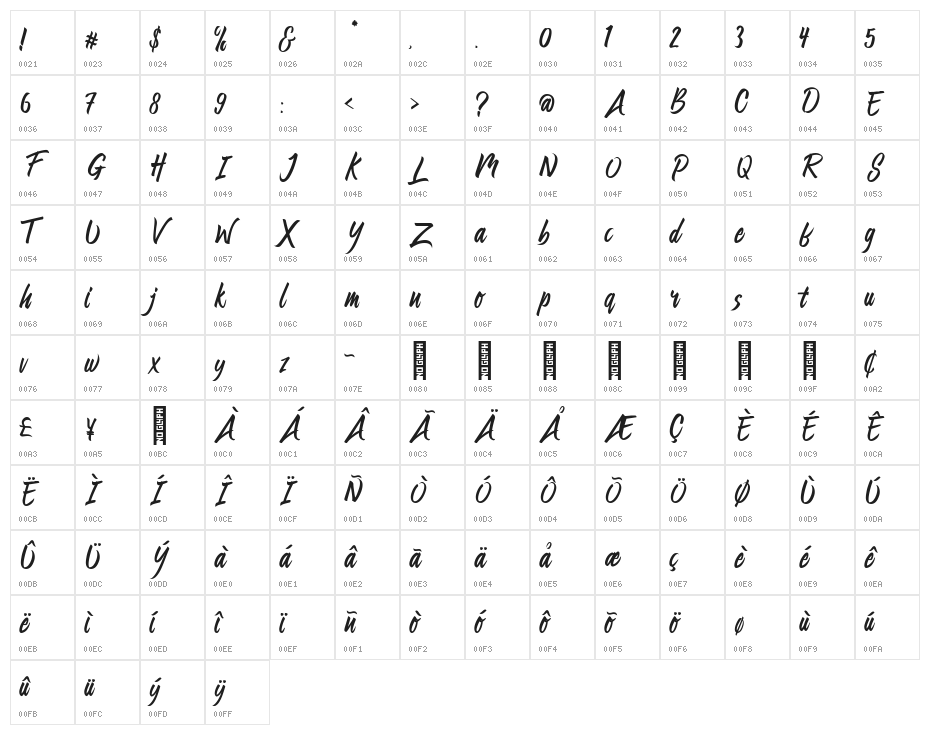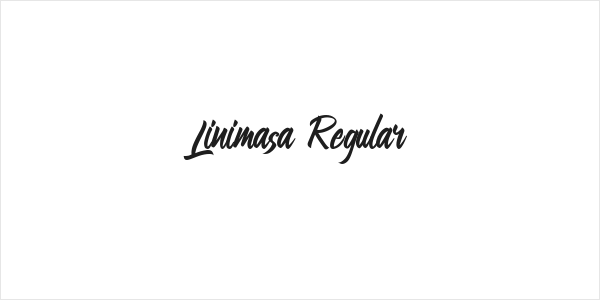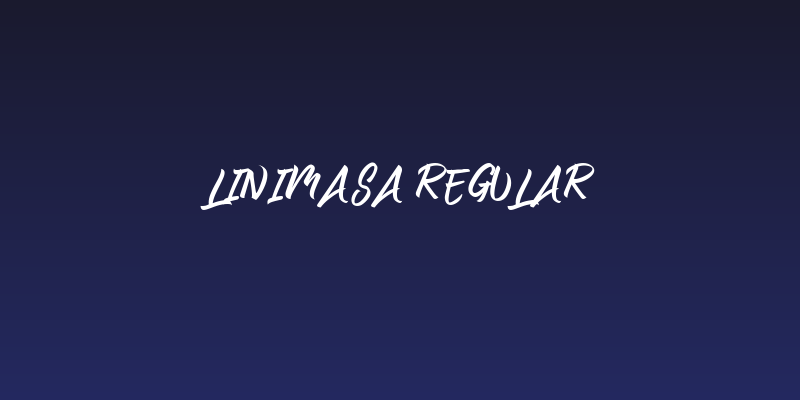
Linimasa Regular Font
Linimasa Regular Description
This font features a dynamic and expressive script style, characterized by its fluid, cursive strokes and elegant curves. The uppercase letters are bold and sweeping, with a sense of movement that adds a lively touch to any text. The lowercase letters maintain a consistent flow, enhancing readability while preserving the artistic flair. Numbers and special characters are crafted with the same attention to detail, ensuring a cohesive look across all elements. The overall design is both modern and timeless, making it suitable for a variety of creative applications.
| Use Case | Logos, Invitations, Greeting Cards |
| Proposed Projects | Ideal for branding, invitations, greeting cards, and artistic projects that require a personal touch. |